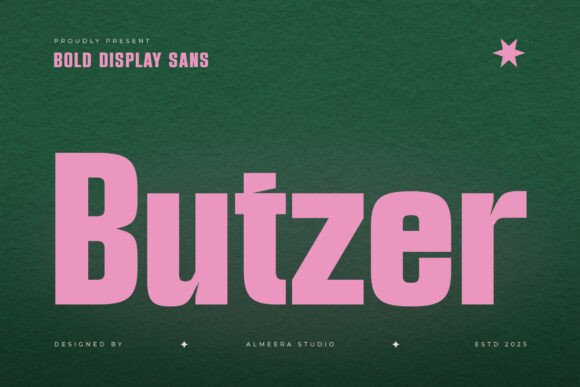
The Power of Butzer Font: Elevate Your Designs with Confidence
I’ll never forget the design project that made me fall in love with the Butzer font. I was working on a branding campaign for a trendy new coffee shop, and I needed a font that would make a statement. After hours of scrolling through font libraries and trying out different options, I stumbled upon Butzer. Its bold, geometric shapes and modern proportions immediately caught my eye. I knew right then and there that it was the perfect fit for the project.
The client was thrilled with the final result, and I’ve been a huge fan of Butzer ever since. In this article, I’ll share with you what makes Butzer font so special, its strengths and weaknesses, and how to get the most out of it in your designs.
An Honest Review of Butzer Font
What I Love About Butzer Font ✨
• ✅ Bold and eye-catching: Butzer font is designed to make a statement, and it delivers. Its strong geometric shapes and modern proportions make it perfect for headlines, posters, and any project that requires a powerful presence.
• ✅ Clean and versatile: Despite its bold personality, Butzer font is surprisingly clean and versatile. It works beautifully across both digital and print media, making it a great choice for designers who need a font that can adapt to different formats.
• ✅ Elegant and modern: Butzer font balances elegance with impact, making it perfect for designers who want to add a touch of sophistication to their work.
• ⚠️ Limited use cases for body text: While Butzer font is amazing for headlines and titles, it’s not the best choice for body text. Its bold personality can be overwhelming for longer blocks of text.
• ⚠️ May not work well with serif fonts: Butzer font’s modern, sans-serif design may clash with serif fonts. It’s best to pair it with other sans-serif fonts or use it as a standalone font.
The Backstory of Butzer Font
Butzer font was designed by a young type designer who wanted to create a font that would make a statement. Inspired by modernist architecture and geometric shapes, the designer set out to create a font that would be both bold and elegant. After months of refinement and testing, Butzer font was born.
Font Name Butzer Font
Author Almeera Studio
Q: What is Butzer font best used for?
A: Butzer font is best used for headlines, posters, branding, packaging, social media graphics, and any project that requires a powerful, eye-catching presence.
Q: Can I use Butzer font for body text?
A: While Butzer font is amazing for headlines and titles, it’s not the best choice for body text. Its bold personality can be overwhelming for longer blocks of text.
Q: Is Butzer font suitable for digital use?
A: Yes, Butzer font is designed to work beautifully across both digital and print media. It’s perfect for designers who need a font that can adapt to different formats.